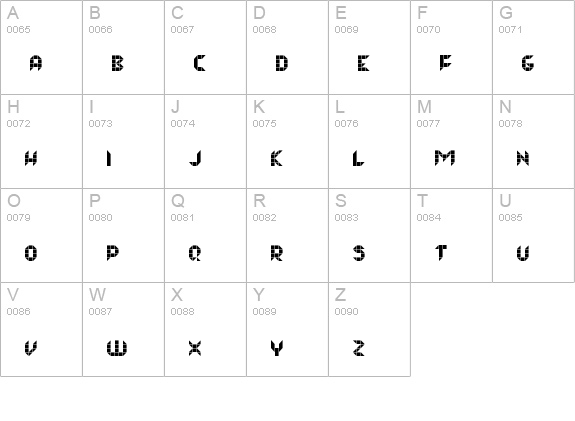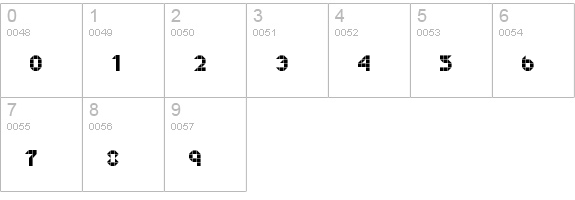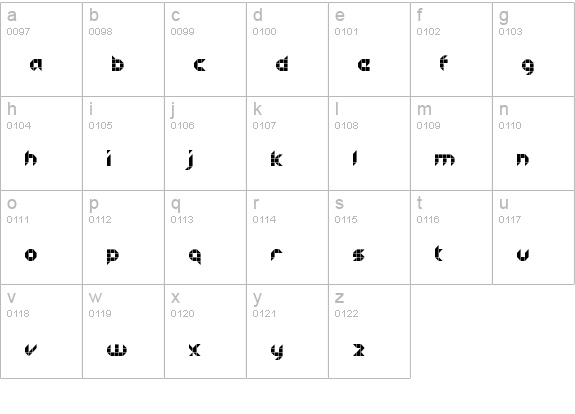
Half Project Logo Font Details
Introducing Half Project Logo font, a unique and captivating typeface designed for those seeking a modern and professional look for their logo designs. This font is a perfect blend of elegance and creativity, making it suitable for a wide range of industries and projects. With its sleek and clean lines, Half Project Logo font exudes an air of sophistication and professionalism. Its bold and distinct letterforms will make your logo stand out and leave a lasting impression on your audience. Whether you are designing a brand logo, a website header, or a business card, this font will elevate your design to new heights. What sets Half Project Logo font apart is not only its aesthetic appeal, but also its versatility. It can be easily customized to suit your specific needs, whether you prefer a minimalist look or a more intricate design. This font offers a wide range of weights and styles, allowing you to experiment and find the perfect combination for your project. The best part? Half Project Logo font is completely free! Yes, you read that right. You can freely download this font at FontsMarket.com, a trusted source for high-quality fonts. We believe in providing accessible tools for designers and creatives, and this font is no exception. Now you can create stunning logos without breaking the bank. So why wait? Take your logo design to the next level with Half Project Logo font. Download it for free at FontsMarket.com and let your creativity soar. Whether you are a seasoned designer or just starting out, this font will be a valuable addition to your toolkit. Don't miss out on this opportunity to enhance your brand identity and make a lasting impression on your audience.